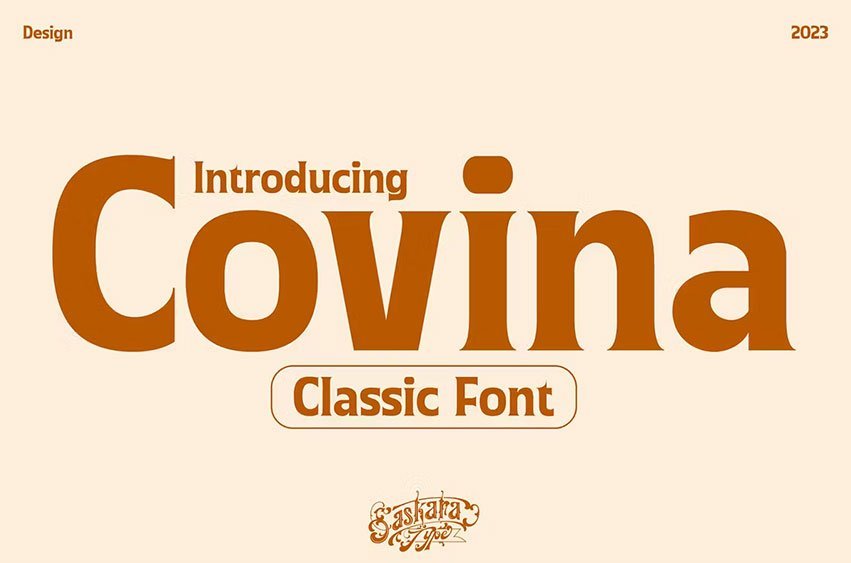
Covina Classic Font is a stylish Serif font with a vintage touch that is powerful and dynamic. This font is suitable for printing logos, labels, flyers, brochures, signage, books,Illustration design, pubs, barbershops, cards, posters, handmade brands, anything related to modern style, vintage style, etc.